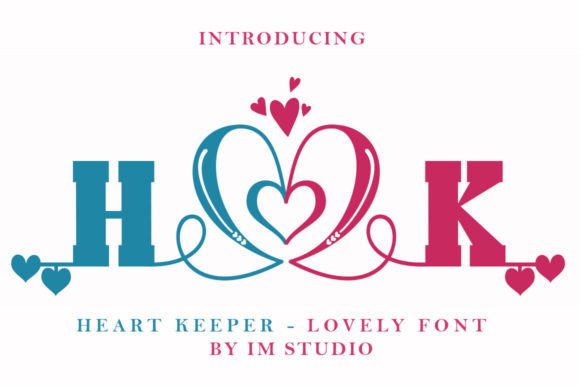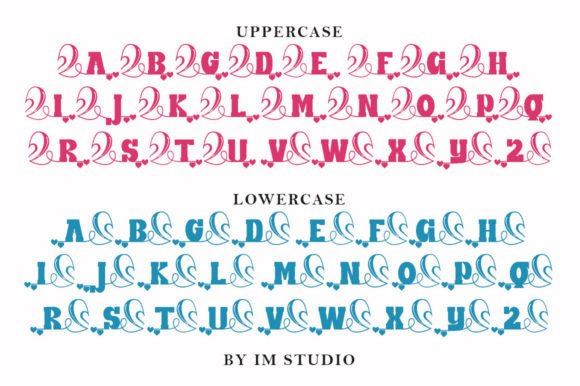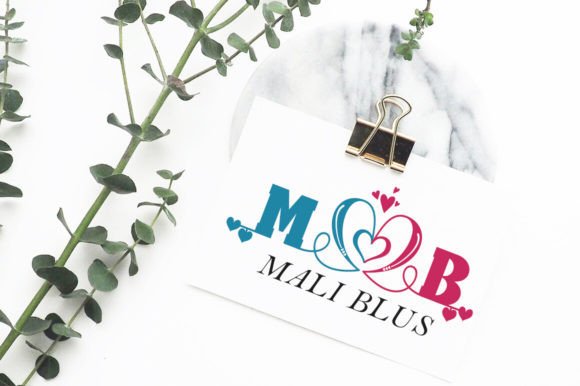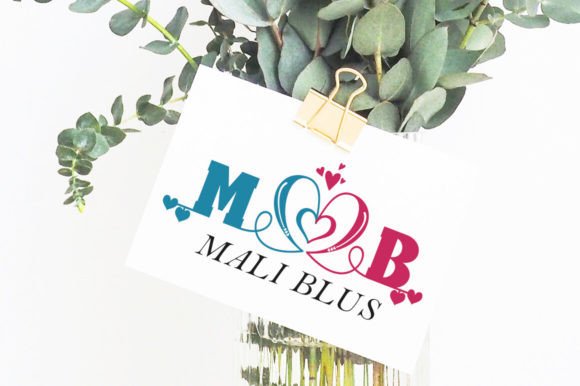
Heart Keeper Font: A Cute Valentine’s Display Font for Cricut & DIY
About the Heart Keeper Font
Welcome to the world of Heart Keeper Font, a typeface that will inspire your next great project. Heart Keeper Lovely is a unique and adorable Valentine’s font. This decorative font will beautifully complement your couple’s Valentine’s Cards, t-shirts, invitations, book covers, posters, etc.
Heart Keeper’s playful charm makes it ideal for projects requiring a touch of whimsy, such as branding for confectionery, children’s products, or Valentine’s Day-themed designs. It also works well in short headlines, on packaging, and for social media graphics. However, its decorative nature makes it unsuitable for body text or UI elements where legibility is paramount. Avoid using it for large blocks of text.
For a balanced design, pair Heart Keeper with a clean sans-serif like Open Sans for body copy, creating a strong contrast that enhances readability. Alternatively, a classic serif like Garamond adds a touch of sophistication, tempering the font’s playful energy. A simple geometric sans-serif could also work well for a modern feel.
The overall personality is cheerful and romantic, making it perfect for brands conveying warmth and affection. Avoid using this font where a more serious or professional tone is required.
Heart Keeper Font Example